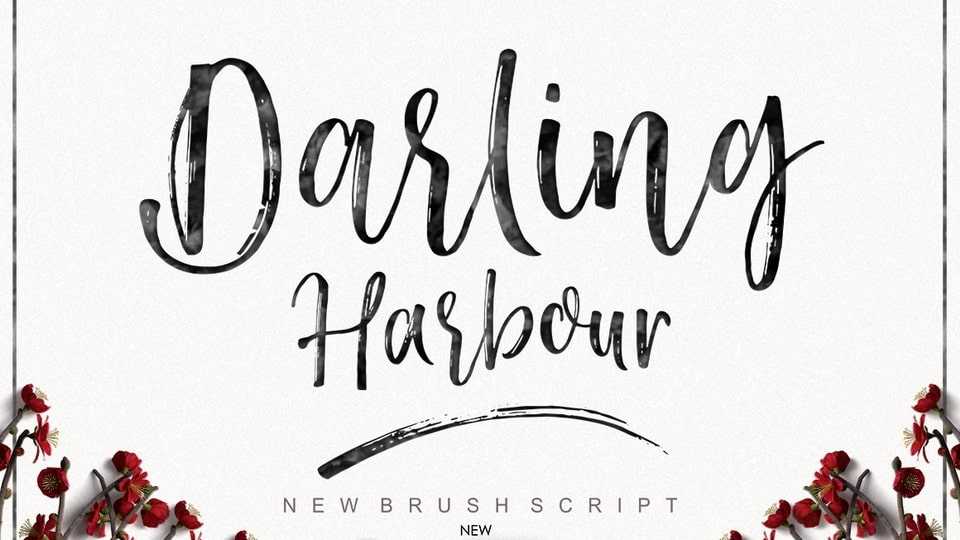
Download Darling Harbour font, a stylish and cool handwritten brush typeface. It looks stunning on every other design which needs a charming handwritten touch.